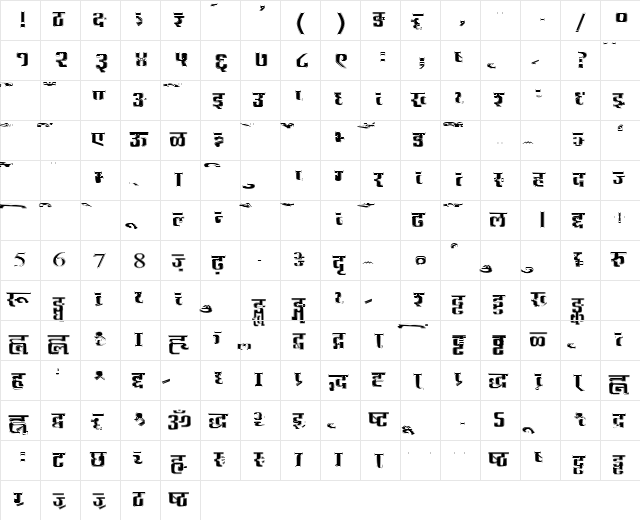
AkrutiDevPraveen Normal
Design Context for AkrutiDevPraveen Typeface
AkrutiDevPraveen takes a measured approach to typography — its balanced proportions and neutral character make it a reliable workhorse for both digital and print work.